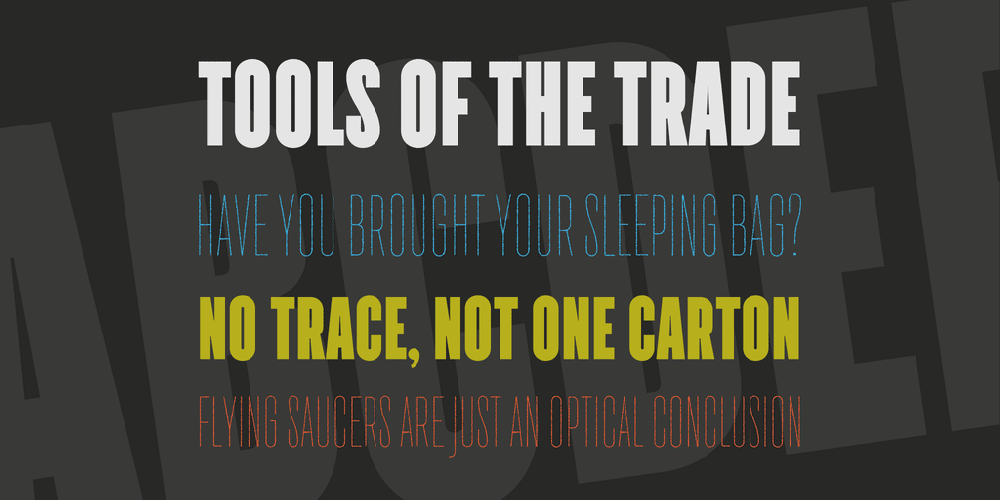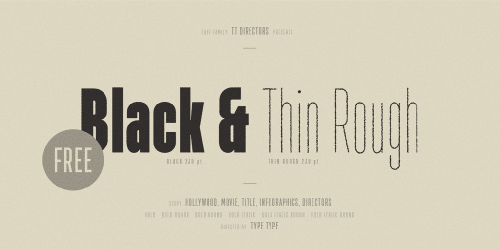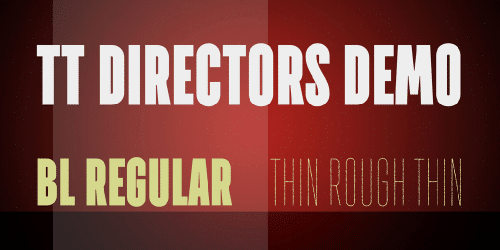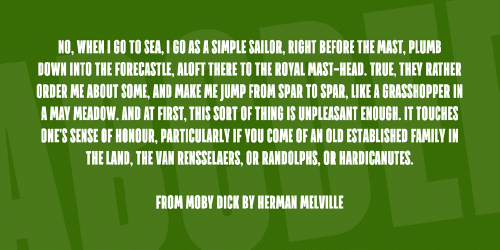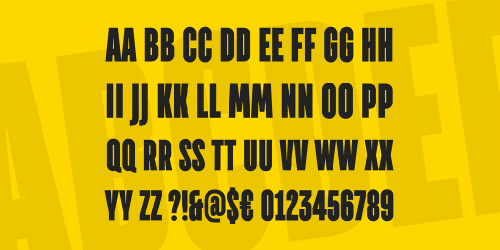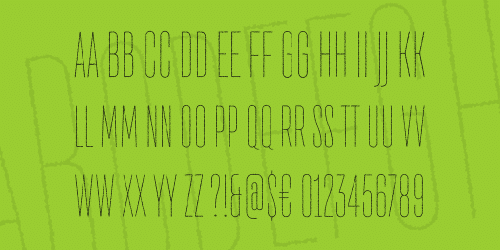
Blockbusters, posters, titles and movie trailers – now we have created the perfect font family for this. Directors – a high-quality font family which is designed specifically for cinephiles and directors. Condensed style contains five most popular typefaces: Thin, Light, Regular, Bold, Black and Italics.
Scope:
Posters, movies, titles, scripts, film, comedy, action, Hollywood, logos, interior design, infographics, display, headline, decorative, geometric, books, educational literature, textbooks